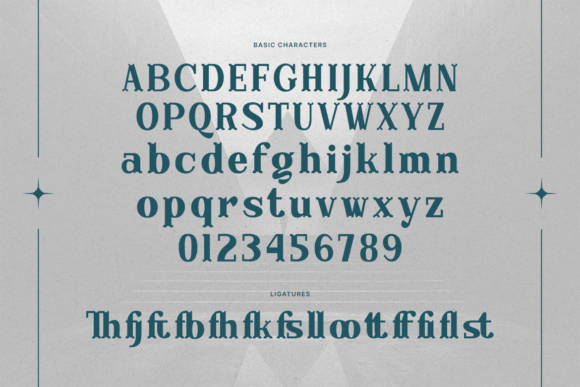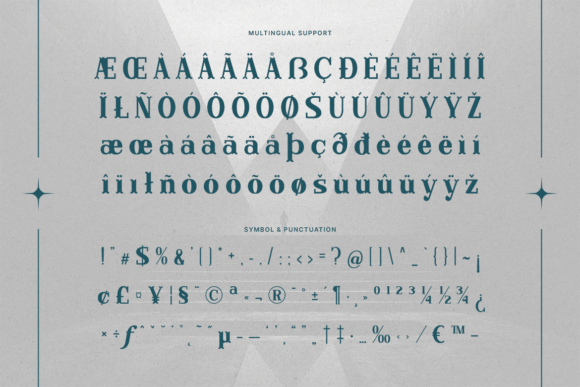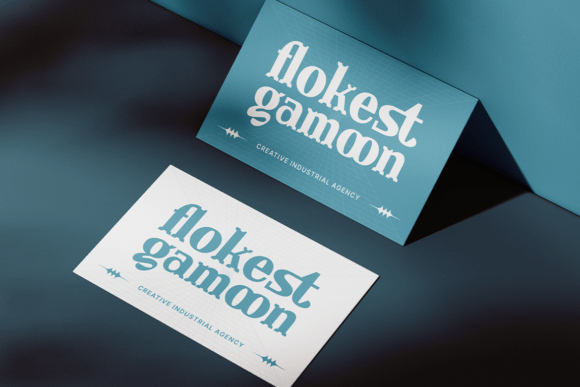
Introduction to Mehink Font
Have you ever been stuck in a creative rut, scrolling through design inspiration boards, desperate for the perfect font to elevate your project? For designers, finding the right typography can be the difference between a decent design and a truly stunning one. It’s in these moments that discovering a new font can be a game-changer. And that’s exactly what happened when we stumbled upon the Mehink Font.
With its unique blend of classic serif structure and stylized details, Mehink Font is a design resource that stands out from the crowd. Its bold letterforms and rounded terminals create a strong visual presence that demands attention, making it perfect for branding, posters, editorial headlines, logos, packaging, and visual identity projects. Whether you’re working on a free download or a high-end design project, Mehink Font is sure to add a touch of sophistication and creativity to your work.
One of the things we love about Mehink Font is its versatility. From its transparent background to its multilingual support, this font is designed to adapt to any design need while maintaining its distinctive character. And with its high-quality design, you can be sure that your project will look professional and polished.
Key Features of Mehink Font
- Designed to be highly legible, making it suitable for use in a wide range of applications
- Unique characteristics include its modern and minimalist aesthetic, making it a great choice for contemporary designs
Honest Review: Mehink Font
I recently stumbled upon the Mehink Font while searching for a free download to spice up a creative project. Overall, I’m impressed with the quality and versatility of this design resource.
- What works well: ✨ The Mehink Font comes with a transparent background, making it easy to customize and blend with any design. I also appreciate the high-quality vectors, which are perfect for printing or digital applications.
- What works well: ✨ The font’s unique and modern design is perfect for creative projects, from branding to editorial work. The bold and elegant lines make it stand out and add a touch of sophistication to any layout.
However, there are some limitations to consider: ⚠️ The font is a bit limited in terms of character sets, which might be a problem for some users. Additionally, the font is not ideal for use in headings or titles, as the bold lines can make it hard to read in certain situations.
Overall, I’d say the Mehink Font is a great addition to any design resource library. While it may have some limitations, its unique design and high-quality vectors make it a valuable asset for creative projects. I’d definitely recommend it for designers looking for a free download with a lot of character.
Tips for Getting the Most Out of Mehink Font
Use the Mehink Font with a transparent background to create a unique and eye-catching design. Experiment with different font sizes and styles to add visual interest to your creative project.
Common Use Cases for Mehink Font
The Mehink Font is ideal for use in graphic design, digital art, and creative writing projects. It’s also great for use in presentations, documents, and social media posts.